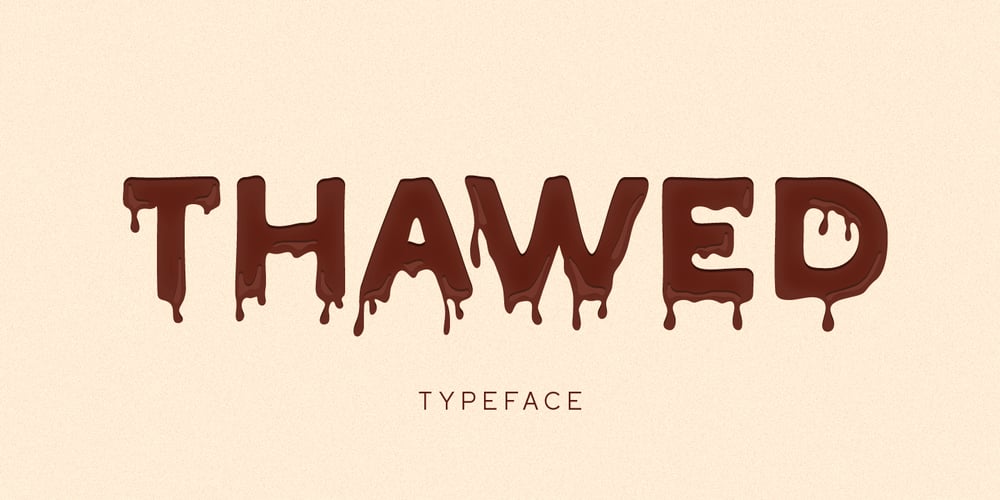
Thawed Font Family was designed by Pavel Larin and published by Larin Type Co. Thawed contains 2 styles and family package options. Thawed This is a display font of a narrow specialization, its letters seem to have melted and flowed, but at the same time it retains the shape of the letters and is well read. It is perfect for branding, logos, labels, short display inscriptions and advertising materials from flyers to billboards. This font includes drops of style, they make it possible to make the font more voluminous and give detail.